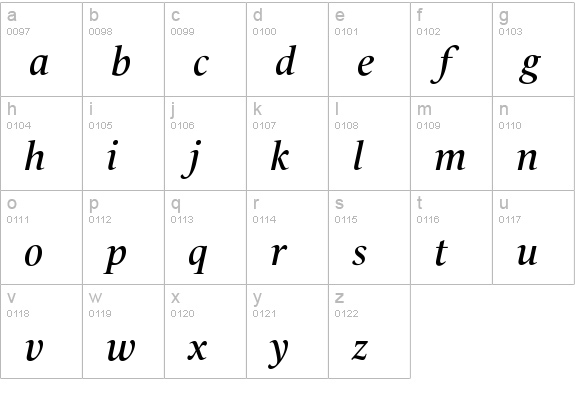
LeMondeLivre Demi Italic is a sub-bold, structured, italic variant in the LeMondeLivre typeface family \xE2\x80\x94 well suited to sub-headlines and emphasised passages.
LeMondeLivre Demi Italic font is a stunning display of elegance and sophistication. It exudes a unique blend of modernity and classic charm, making it the perfect choice for those looking to add a touch of sophistication to their designs. This exquisite font is carefully crafted with intricate details and delicate curves, creating a graceful and refined appearance. Its demi italic style adds a subtle sense of movement and fluidity, making it ideal for conveying a sense of dynamism and energy. LeMondeLivre Demi Italic font is not only visually appealing but also highly versatile. It can effortlessly enhance a variety of design projects, including branding, advertising, packaging, and editorial layouts. Its legibility and readability make it a reliable choice for both large headlines and small body text. One of the great advantages of LeMondeLivre Demi Italic font is that it is free to download at FontsMarket.com. This means that designers and typographers can easily access this stunning font without any unnecessary costs. It allows for seamless integration into various creative projects, allowing designers to fully explore its potential and unleash their creativity. Whether you are designing for print or digital platforms, LeMondeLivre Demi Italic font will undoubtedly elevate your designs to the next level. Its timeless appeal and modern flair make it a must-have for any designer seeking to make a lasting impression. Download LeMondeLivre Demi Italic font for free at FontsMarket.com and embark on a journey of creativity and artistic expression. Let this font become your go-to choice for adding a touch of elegance and sophistication to your designs.